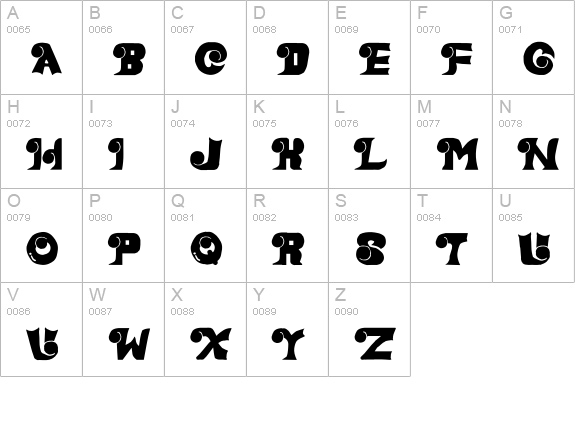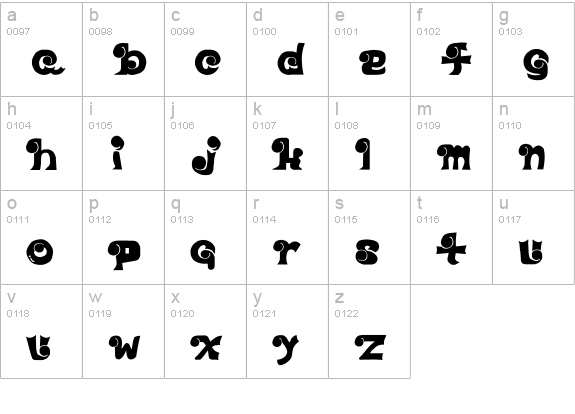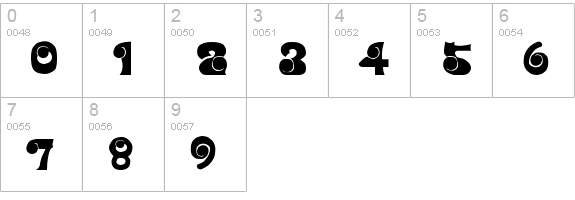
EYEfont Font Details
Introducing EYEfont, a visually striking and versatile font that will elevate your design projects to new heights. With its unique and modern aesthetic, EYEfont is perfect for a wide range of applications, from branding to editorial design. This eye-catching font features sleek lines and elegant curves that will captivate your audience and make a lasting impression. Best of all, EYEfont is completely free to download at FontsMarket.com. Yes, you read that right - you can access this stunning font for free and start using it in your projects right away. Don't miss out on this fantastic opportunity to enhance your designs with the beauty and sophistication of EYEfont. Download it now and see the difference it can make in your creative endeavors.